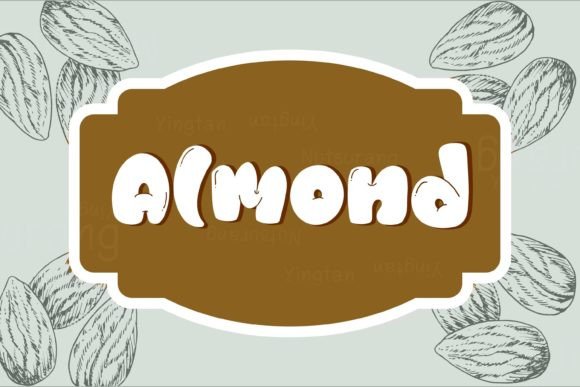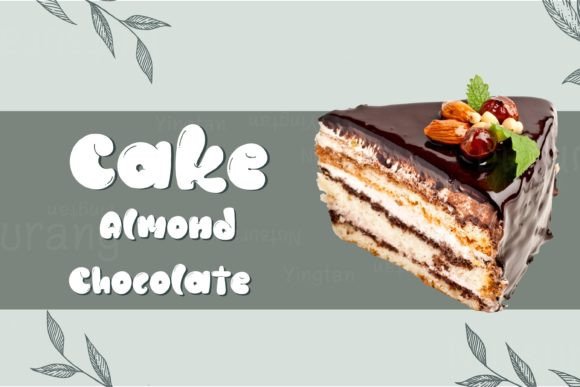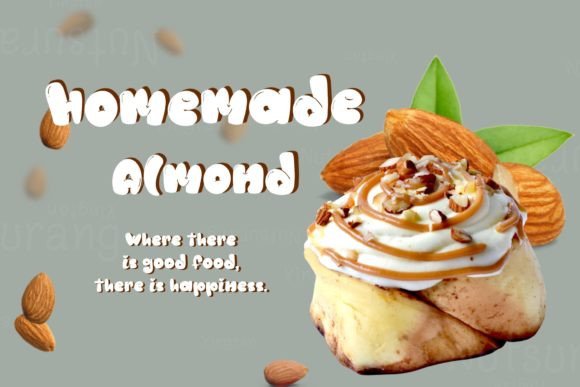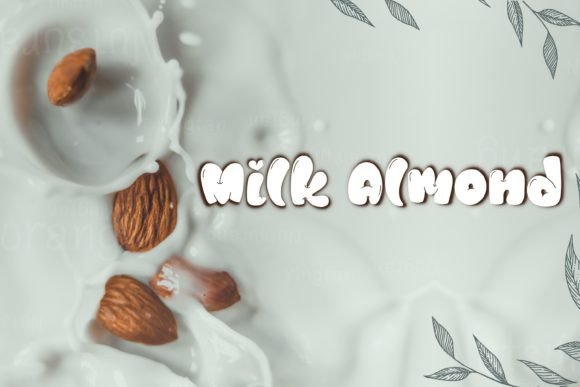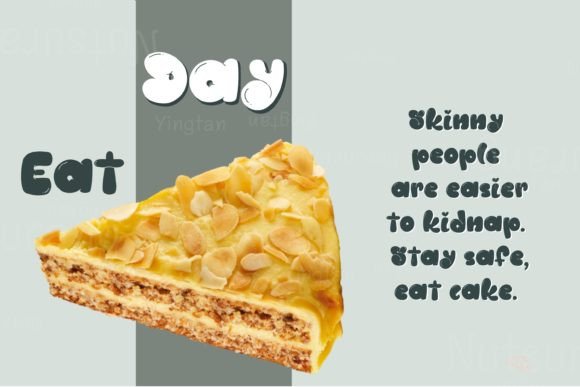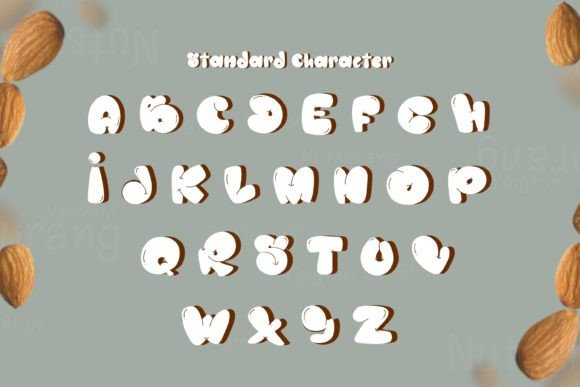
Introduction to Almond Fornt Font
Almond Fornt is a cool, incredibly cute, and bubbly display font.
Add it to each of your party invitations, swimming gathering, or pretty much any design that requires a touch of youth and joy .